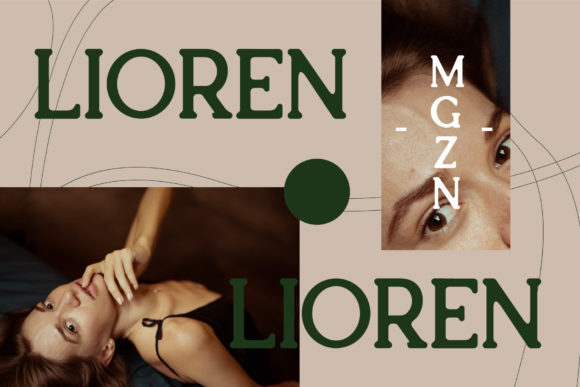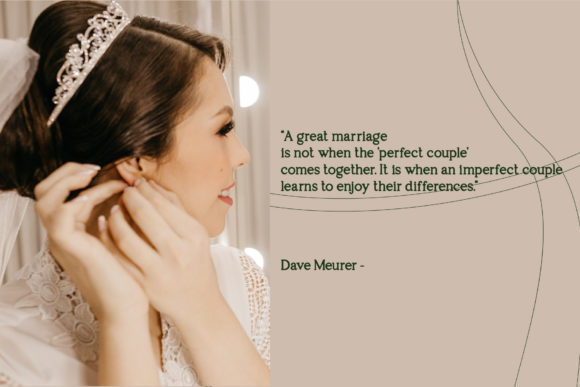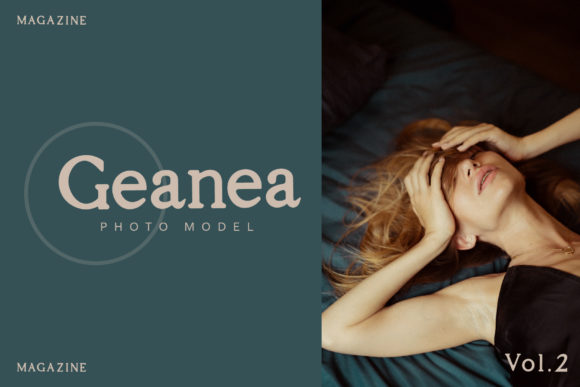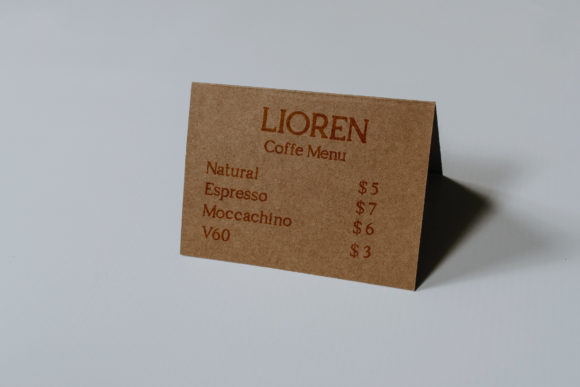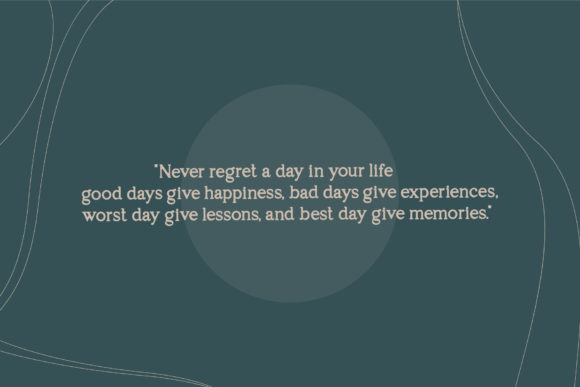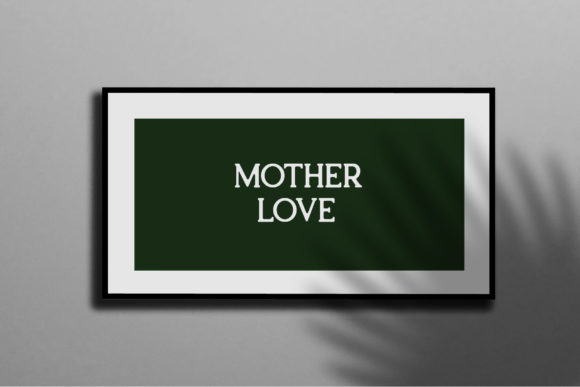
Introduction to Lioren Font
Have you ever been working on a creative project and struggled to find the perfect font to bring it to life? The search can be overwhelming, especially when you’re looking for something that’s not only visually appealing but also adaptable and versatile. That’s where the Lioren Font comes in – a cool, vintage-styled serif font that’s about to become your new go-to design resource.
With its high-quality design and transparent background, the Lioren Font is perfect for designers who want to add a touch of elegance and sophistication to their work. Whether you’re working on a logo, brochure, or website, this font has the potential to elevate your design and make it stand out from the crowd.
Key Features of Lioren Font
- Features a unique, modern design that can add a touch of sophistication to any project.
- Perfect for designers working on a wide range of creative projects, from logos to digital art.
Honest Review: Lioren Font
As a designer, I’m always on the lookout for high-quality design resources to elevate my creative projects. The Lioren Font caught my eye with its sleek, modern design and transparent background. I was excited to give it a try and see how it would perform.
Here are some things that worked well: ✨ It’s incredibly versatile and can be used for a wide range of design projects, from branding to digital art. ✨ The font is highly customizable, with a range of weights and styles to choose from. ✨ It’s also completely free to download, which is a huge bonus.
However, I did encounter a few limitations: ⚠️ The font may not be suitable for very small text sizes, as it can become difficult to read. ⚠️ It’s also worth noting that the font is not compatible with all operating systems, so be sure to test it thoroughly before use.
Overall, I was impressed with the Lioren Font and would definitely recommend it to other designers. With its high quality and versatility, it’s a great addition to any design resource library.
To get the most out of the Lioren Font, use it for titles and headings in your design. Its high quality and transparent background make it perfect for creating eye-catching graphics. Use it for social media posts, blog headers, or any other creative project where a clean and modern font is required.